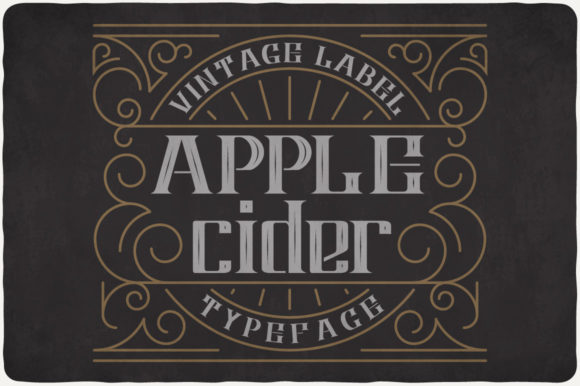
The Apple Cider Font: A Vintage Stunner for Your Design Arsenal
I’ll never forget the design project that led me to discover the Apple Cider font. I was working on a branding project for a local craft cider company, and I was struggling to find the perfect font to capture their rustic yet sophisticated vibe. That’s when I stumbled upon Apple Cider, a bold and vintage-styled display font that instantly elevated my design game.
So, what makes Apple Cider so special? Here are a few things I love about this font:
- ✨ Unique vintage charm: Apple Cider has a distinct, retro feel that’s perfect for designs that need a touch of nostalgia.
- ✅ High versatility: This font can be used for a wide range of projects, from branding and packaging to posters and social media graphics.
- 💥 Impactful and bold: Apple Cider is a statement font that demands attention, making it ideal for headlines, titles, and emphasis text.
Of course, no font is perfect, and Apple Cider has a few minor quirks:
- 🤔 Limited legibility at small sizes: As with many display fonts, Apple Cider can be tricky to read at smaller sizes, so it’s best used for headlines and titles.
- ⚠️ Some glyphs may require manual adjustment: Depending on your design, you may need to tweak certain glyphs to get the perfect fit.
- Experiment with OpenType features like ligatures and stylistic alternates to add visual interest.
The Story Behind Apple Cider
Apple Cider was designed with the intention of capturing the warmth and character of vintage typography. The font’s creator drew inspiration from classic posters, signage, and print materials from the early 20th century, with a focus on bold, eye-catching letterforms.
| Is Apple Cider suitable for body text? | While Apple Cider is a beautiful font, it’s best suited for headlines and titles due to its bold, display nature. |